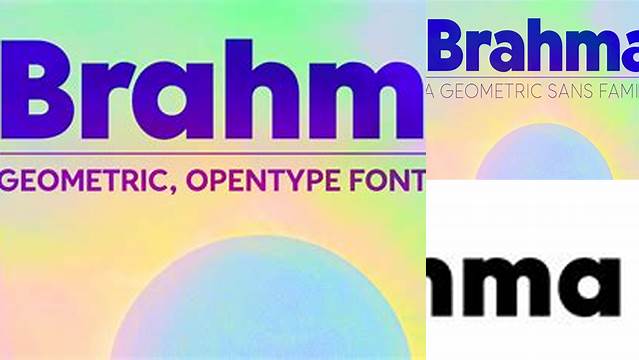
What is Brahma Font?
Before we jump into the download details, let's talk about what makes the Brahma font so special. This font is known for its clean lines, modern feel, and versatility. It's perfect for a wide range of applications, from branding and logos to web design and print materials. The Brahma font is designed to be legible and aesthetically pleasing, ensuring your message is conveyed clearly and stylishly. Its unique character shapes give it a distinctive edge, making it stand out from more generic fonts. Whether you're working on a corporate identity, a website header, or a poster, Brahma font can add a touch of sophistication and modernity. The font often includes various weights and styles, allowing for flexibility in design projects. Using Brahma font can elevate your project, providing a professional and polished look that captures attention. The design of Brahma font is influenced by contemporary trends, making it a popular choice among designers who want to stay current.
Using Brahma Font in Graphic Design
The Brahma font is a versatile choice for graphic design, offering a modern and clean aesthetic. Its readability makes it suitable for both headlines and body text, providing flexibility in your designs. When using Brahma font in graphic design, consider its weight and style to create visual hierarchy. Use a heavier weight for headings to draw attention and a lighter weight for body text to ensure readability. Experiment with different sizes and colors to see how Brahma font can complement your overall design. Its geometric structure works well with minimalist designs, adding a touch of sophistication without overwhelming the composition. Brahma font is also excellent for branding projects, as its unique character shapes can help create a memorable and distinctive brand identity. In logo design, Brahma font can convey a sense of modernity and professionalism. Pair it with complementary fonts to create a balanced and harmonious design. For example, a classic serif font can add a touch of tradition to balance Brahma font's modern feel. In web design, Brahma font can be used for headings, navigation menus, and body text. Its clean lines ensure readability on screens of all sizes. Using Brahma font consistently across your website can create a cohesive and professional look. Always consider the overall aesthetic of your project and how Brahma font can enhance it. With its versatility and modern appeal, Brahma font is a valuable addition to any graphic designer's toolkit.
Using Brahma Font in Web Design
In the realm of web design, the Brahma font shines as a contemporary and highly readable option. Its clean lines and modern structure make it an excellent choice for various web elements, from headlines to body text. When integrating Brahma font into your web projects, consider using CSS to specify the font-family. This ensures that the font is consistently applied across your website. Use different font weights and styles to create visual hierarchy and guide the user's eye. For example, use a bold weight for headings and a regular weight for body text. Brahma font is particularly effective in creating a clean and modern aesthetic for websites. Its readability makes it suitable for content-heavy pages, ensuring that users can easily read and understand the information. In addition to headings and body text, Brahma font can also be used for navigation menus, buttons, and other UI elements. Its versatility allows you to create a cohesive and professional look across your entire website. When using Brahma font on the web, be mindful of font loading times. Large font files can slow down your website, so it's important to optimize the font files for web use. Tools like Font Squirrel's Webfont Generator can help you create optimized versions of Brahma font for the web. Always test your website on different devices and browsers to ensure that Brahma font renders correctly. Cross-browser compatibility is essential for providing a consistent user experience. By carefully considering these factors, you can effectively use Brahma font to enhance the design and usability of your website.
Brahma Font Alternatives
If you're unable to find a brahma free font download or simply want to explore similar options, there are several excellent Brahma font alternatives available. These fonts share similar characteristics, such as clean lines, modern aesthetics, and versatility, making them suitable for a wide range of design projects. One popular alternative is Montserrat, a geometric sans-serif font that offers a similar modern feel. Montserrat is available on Google Fonts, making it easy to use in web projects. Another great option is Lato, a humanist sans-serif font that is known for its readability and clean design. Lato is also available on Google Fonts and is a versatile choice for both headings and body text. Open Sans is another widely used sans-serif font that is similar to Brahma font in terms of readability and modern appeal. Open Sans is also available on Google Fonts and is a popular choice for web design. If you're looking for a slightly more unique alternative, consider Raleway, a stylish sans-serif font that features a distinctive W shape. Raleway is available on Google Fonts and can add a touch of personality to your designs. When choosing a Brahma font alternative, consider the overall aesthetic of your project and how the font will complement your design. Experiment with different fonts to find the perfect fit for your needs. There are numerous excellent alternatives available, so you're sure to find a font that meets your requirements. Don't limit yourself from Brahma font if you can't find it, choose alternatives that may suit your design!